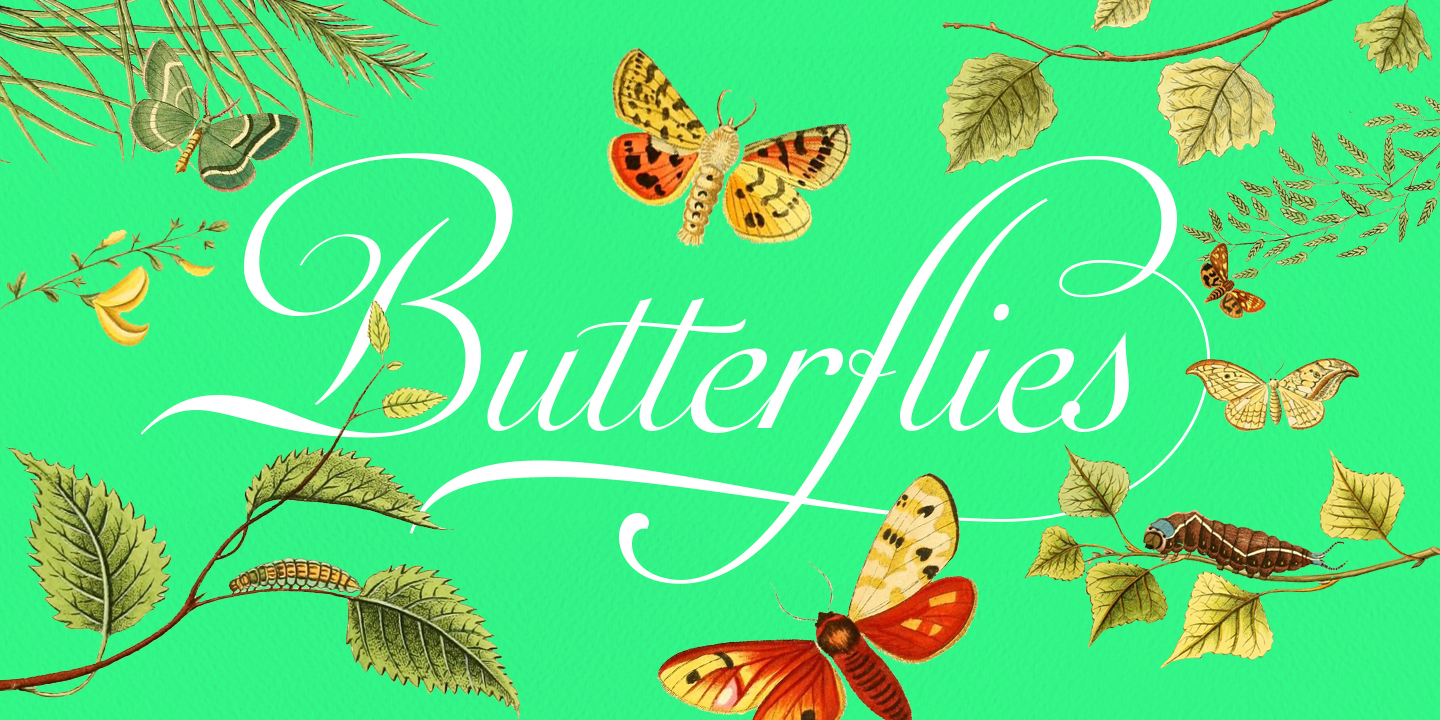
Auberge Script Font is perfect for wedding invitations, luxury branding, elegant packaging, greeting cards, and sophisticated editorial layouts. Its flowing, hand-lettered style adds a touch of romance and refinement.
What makes Auberge Script Font so exciting is its smooth, natural strokes combined with classic script elegance. This font brings warmth and personality, making your designs truly memorable.
The font family typically includes Regular, Italic, and sometimes Bold styles, offering versatility for different design moods and emphases.
If you want to add a graceful and romantic flair to your projects, Auberge Script Font Free Download is an excellent choice. Let this font elevate your creative expressions with timeless beauty.